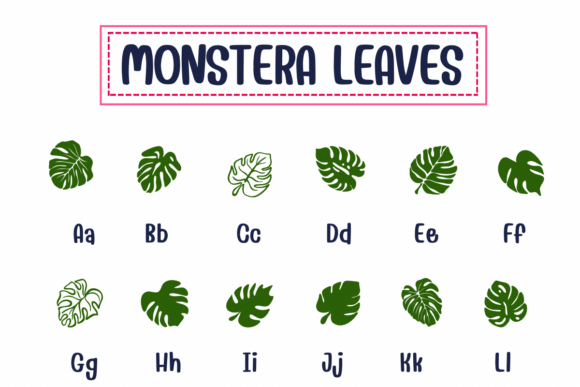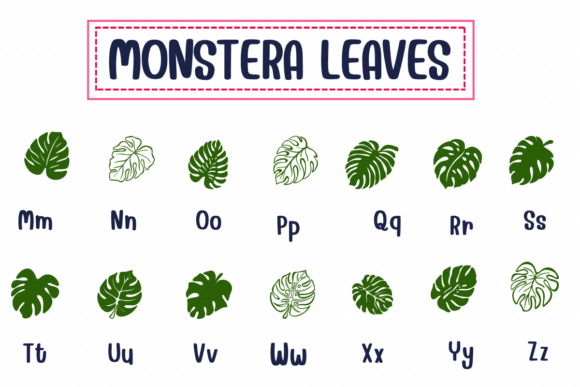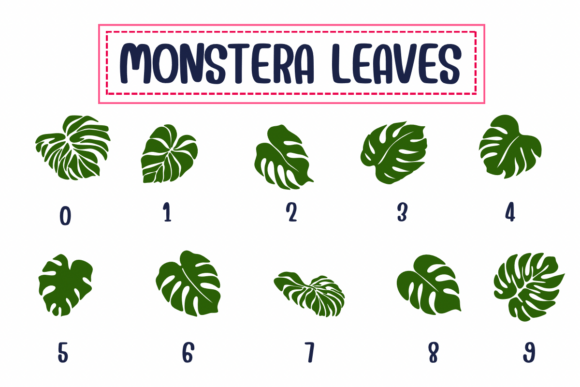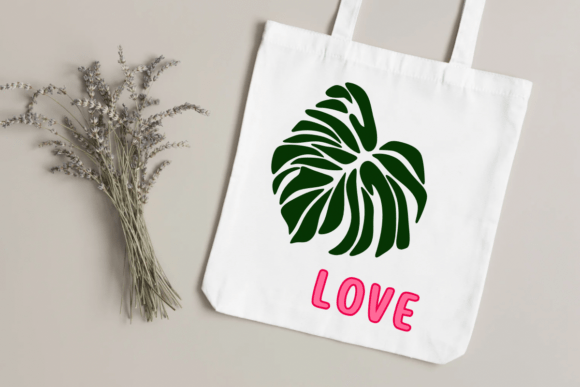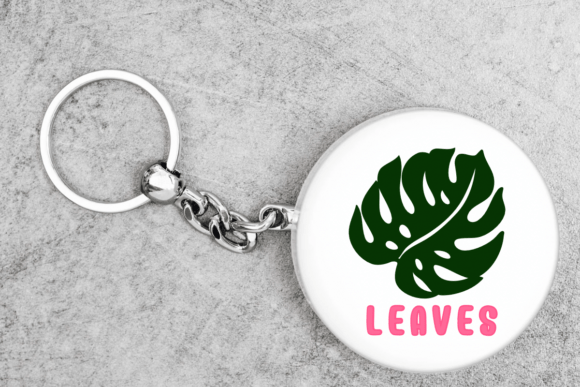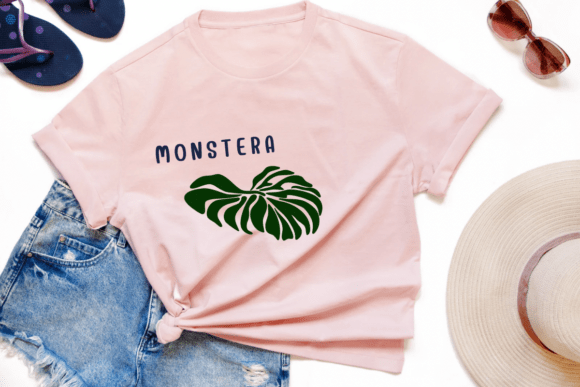
Introduction to Monstera Leaves Font
Have you ever been working on a creative project, pouring your heart and soul into it, only to feel like something’s missing? You know, that moment when you need a little something extra to bring your design to life. For me, that moment came when I stumbled upon the Monstera Leaves Font – a stunning collection of monstera leaf illustrations that added a touch of tropical magic to my project.
As a designer, I can attest that finding the perfect design resource can be a game-changer. The Monstera Leaves Font is more than just a pretty face; it’s a versatile tool that offers a high-quality, vector-style collection of botanical dingbats that can be used as decorative elements, borders, icons, or patterns. With its transparent background and free download option, it’s the perfect addition to any creative project, from digital scrapbooks to Cricut cut files.
Whether you’re looking to add some organic charm to your design or simply want to refresh your brand visuals, the Monstera Leaves Font is a must-have resource that’s sure to inspire your next creative project.
Key Features of Monstera Leaves Font
- Unique, high-quality design for creative projects, featuring realistic Monstera leaves with intricate details and textures.
- Transparent background option allows for seamless integration with various backgrounds and designs, giving users maximum flexibility.
- High-resolution design (300 DPI) ensures crisp and clear visuals, making it perfect for print and digital applications.
- Designed for use in a variety of creative projects, including graphic design, digital art, and even web design, thanks to its scalable vector format.
- Perfect for designers looking for a unique and eye-catching design element to elevate their creative project and make it stand out.
Honest Review: Monstera Leaves Font
As a designer, I’m always on the lookout for unique and high-quality design resources to elevate my creative projects. The Monstera Leaves Font is one such resource that caught my attention. With its intricate details and lush texture, it’s perfect for adding a touch of tropical flair to any design.
- ✨ High-quality design with intricate details and texture
- ✨ Perfect for creative projects that require a touch of tropical flair
- ⚠️ Limited compatibility with transparent backgrounds due to its complex design
- ⚠️ May not be suitable for projects that require a minimalist or simple design aesthetic
Overall, the Monstera Leaves Font is a fantastic design resource for designers looking to add some greenery to their creative projects. While it may have some limitations, its high quality and unique design make it a great addition to any design library.
- Experiment with different font sizes and styles to create visually appealing designs.
- Combine the Monstera Leaves Font with other design elements, such as images and graphics, to create a unique look.
- Use the font’s transparent background feature to create designs that blend seamlessly with other elements.
Common Use Cases for Monstera Leaves Font
The Monstera Leaves Font is perfect for a variety of creative projects, including:
- Marketing materials, such as bro
By incorporating the Monstera Leaves Font into your design repertoire, you’ll be able to add a touch of sophistication and elegance to your work. Its versatility makes it suitable for a wide range of creative projects, from graphic design to digital art. So why wait? Download the Monstera Leaves Font today and experience the thrill of working with a truly exceptional design resource.